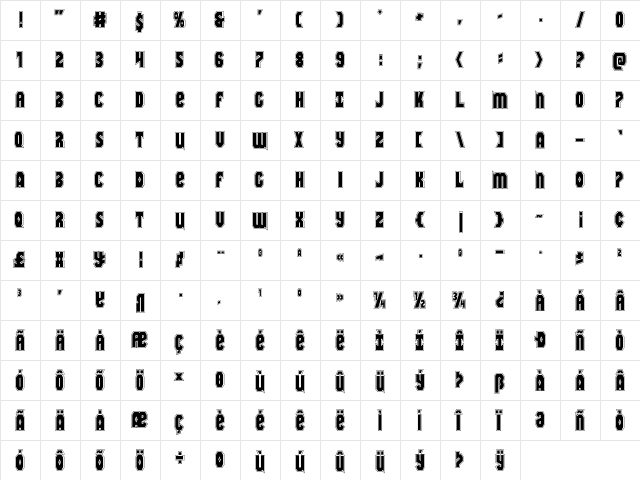
Warrior Nation Academy Regular
Design Context for Warrior Nation Academy Typeface
Warrior Nation Academy is a composed and adaptable typeface that performs quietly and consistently across a wide range of design contexts.